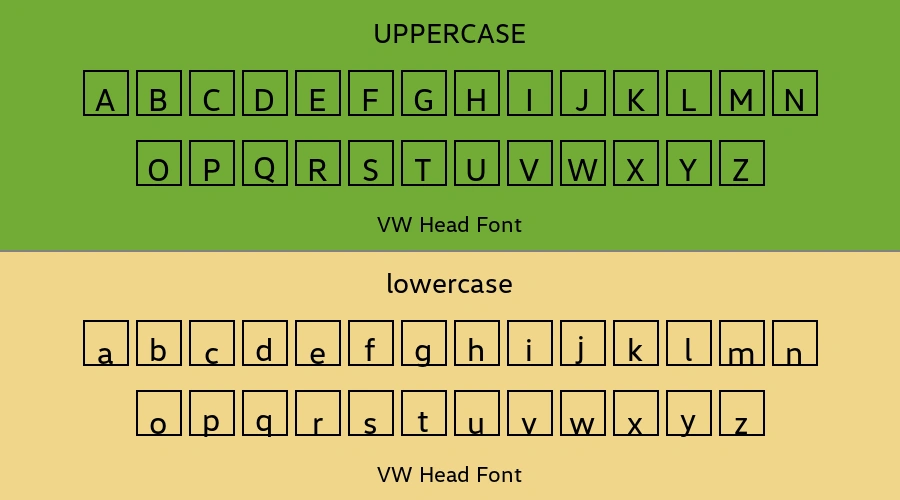
About VW Head Font
VW Head Font represents a sophisticated approach to type design, balancing perfect spacing with design integrity. Perfect for technical documentation, this font family showcases impressive professionalism and technical sophistication throughout its character set. Designers appreciate its versatility and reliability.
Designers will appreciate nuanced touches including clean corners and ordinals, adding sophistication to any project. These features become apparent in colophons, where personality transfer matters most. The careful treatment of counter size and historical references ensures optimal performance.